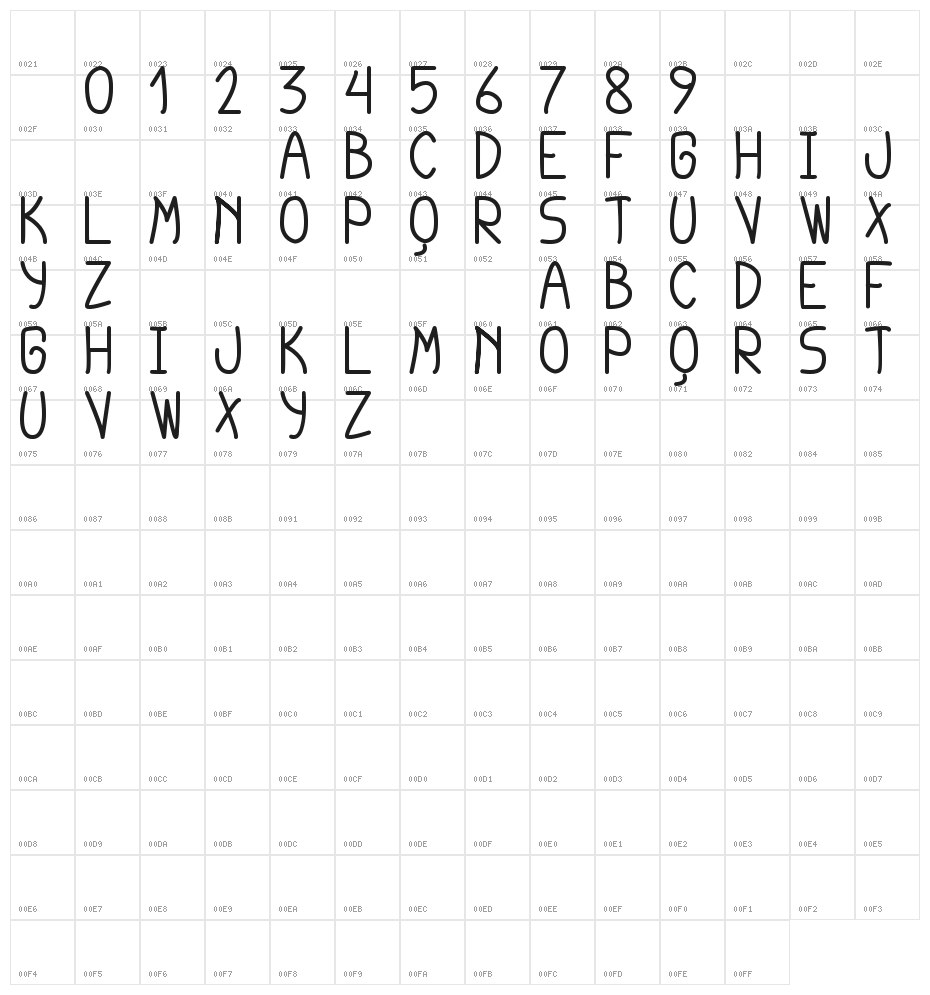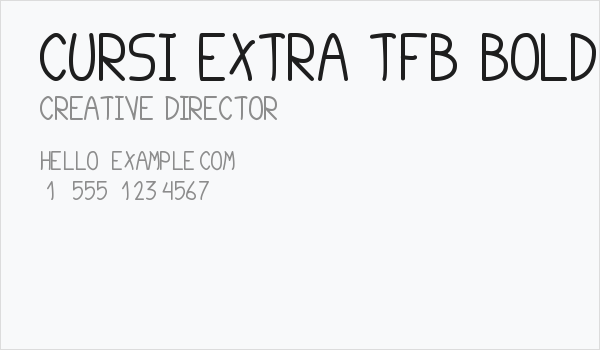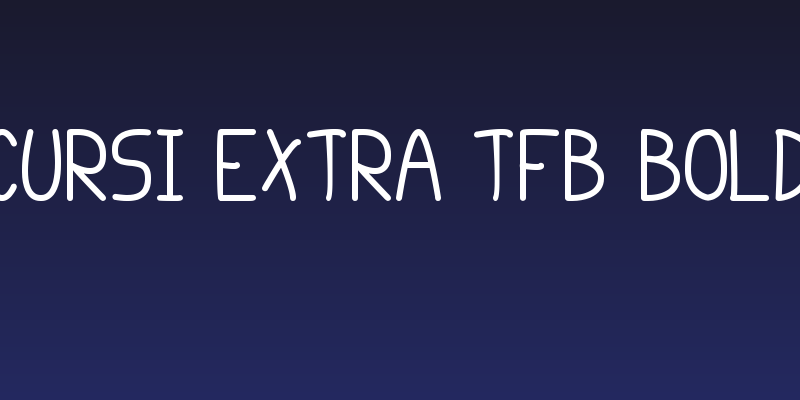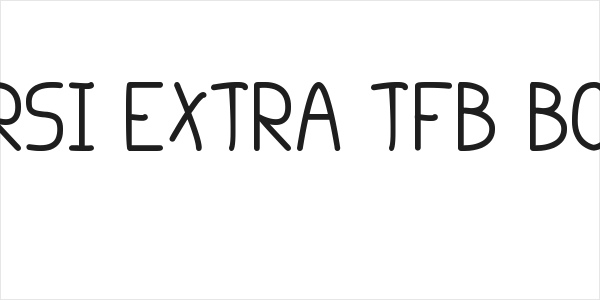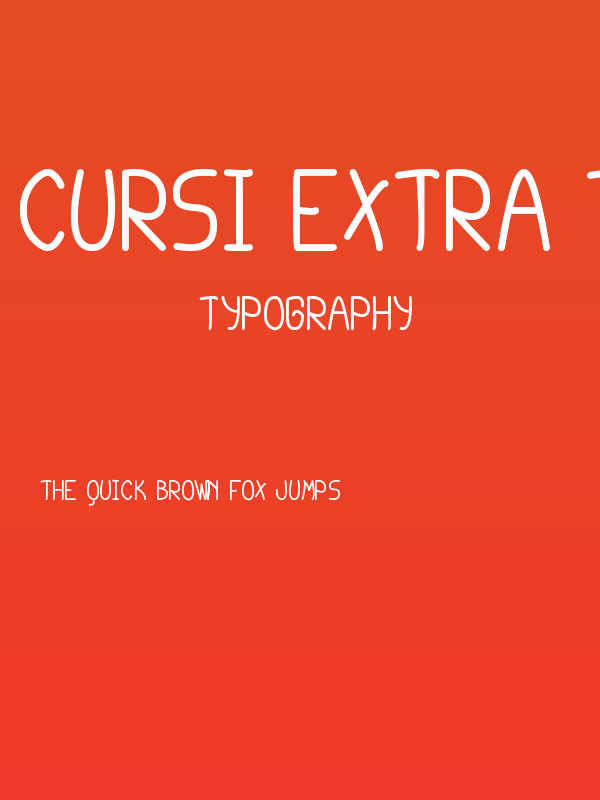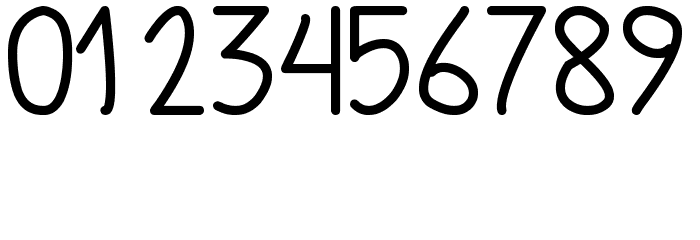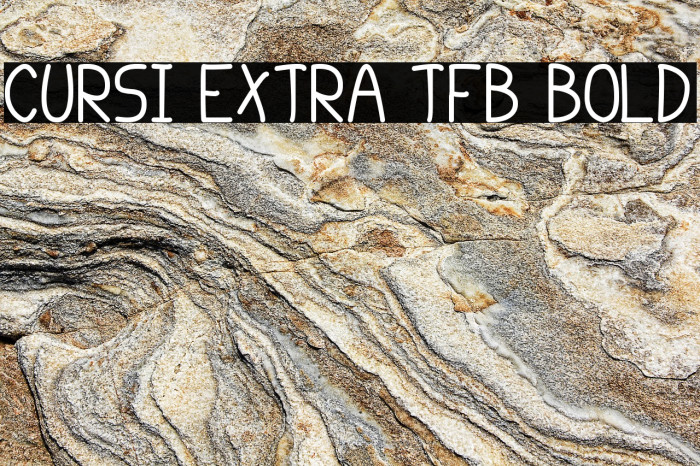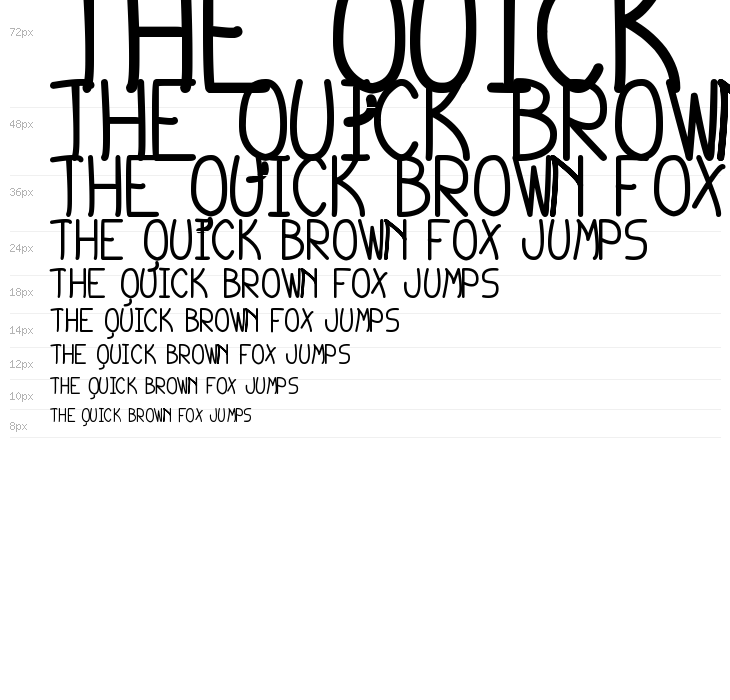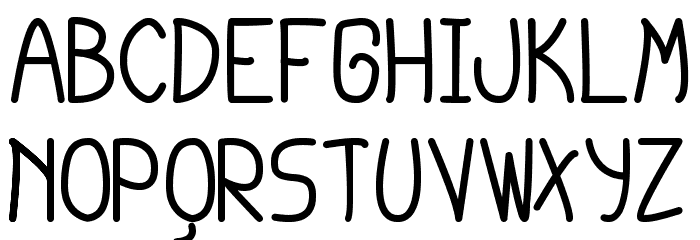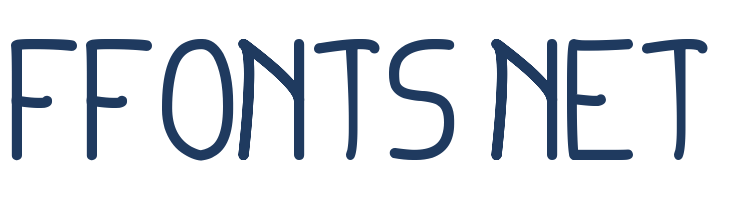
cursi extra tfb bold Font
This font features a playful and informal style with rounded edges and a hand-drawn appearance. The characters are slightly irregular, giving it a whimsical and friendly look. The uppercase and lowercase letters maintain a consistent height, while the numbers are bold and easy to read. The special characters blend seamlessly with the overall design, enhancing its casual and approachable feel. This font is ideal for projects that require a fun and engaging aesthetic, such as children's books, greeting cards, or playful branding.
| Proposed Projects | Ideal for children's books, greeting cards, playful branding, and casual invitations. |